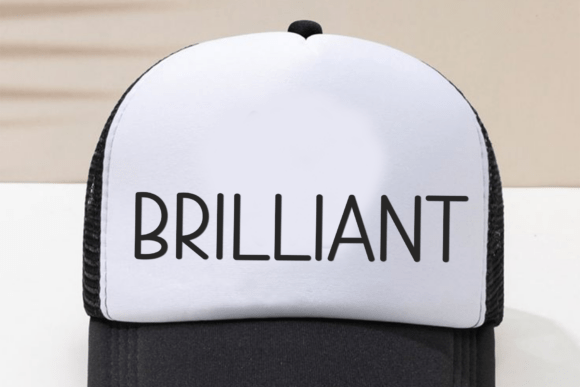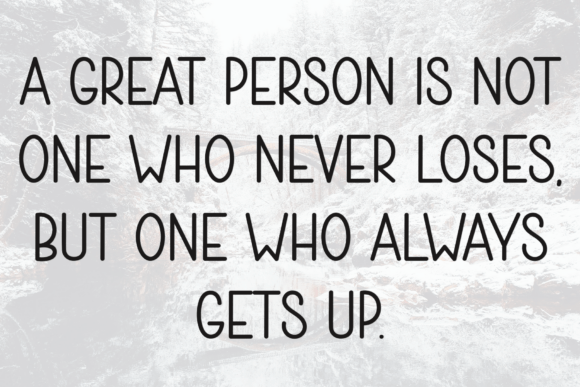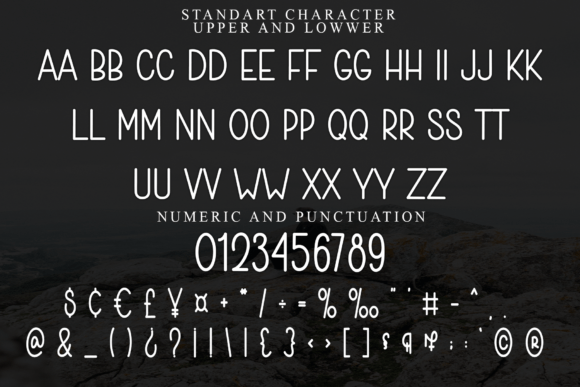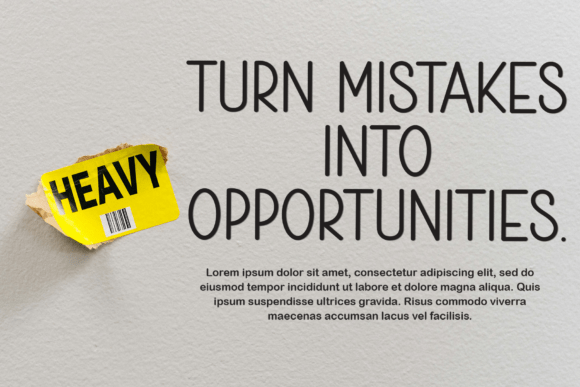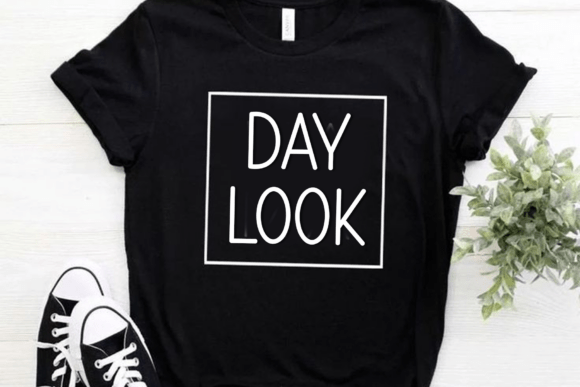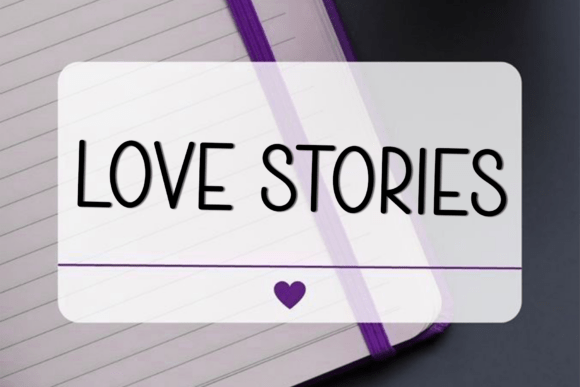
Introduction to Journey March Font
Experience the beauty of clean lines with Journey March, a modern sans serif font that defines understated sophistication.
With its tall, slender profile and perfectly rounded terminals, this typeface offers a refreshing, airy aesthetic Itโs a versatile staple for designers who value legibility and a โless is moreโ philosophy in their contemporary layouts.
Key Features of Journey March Font